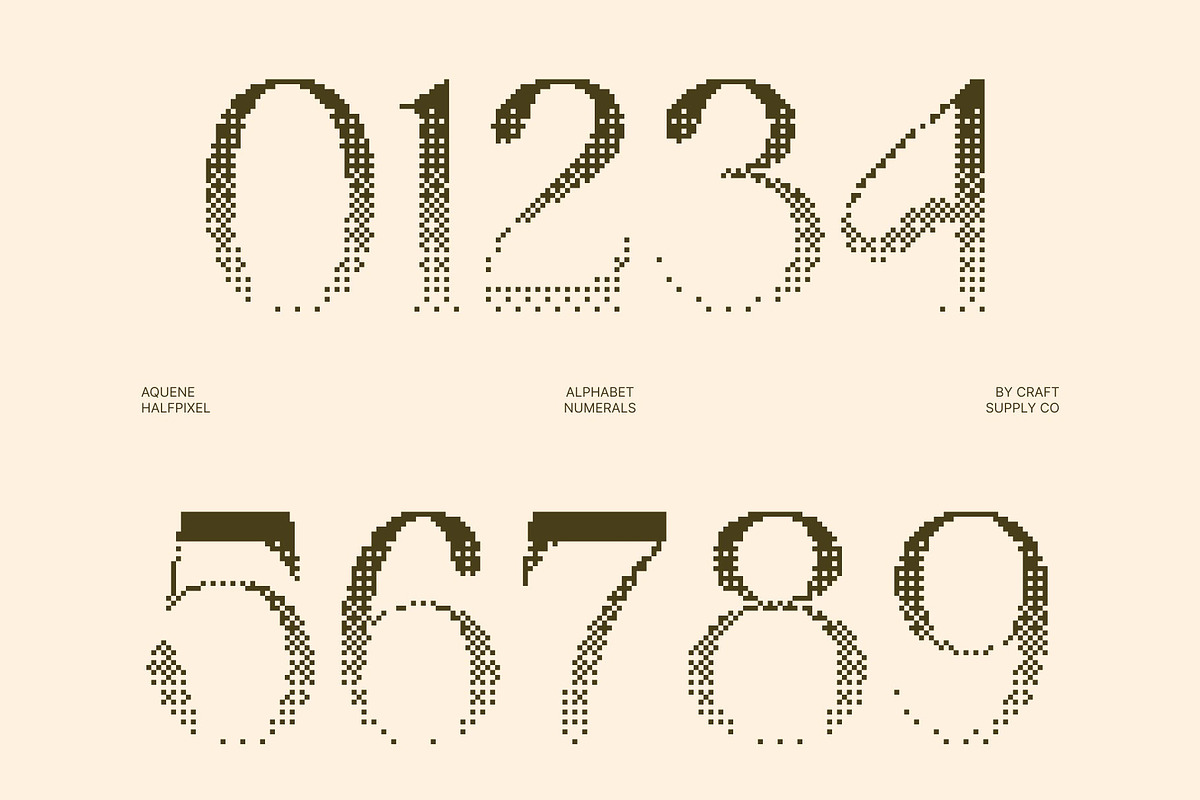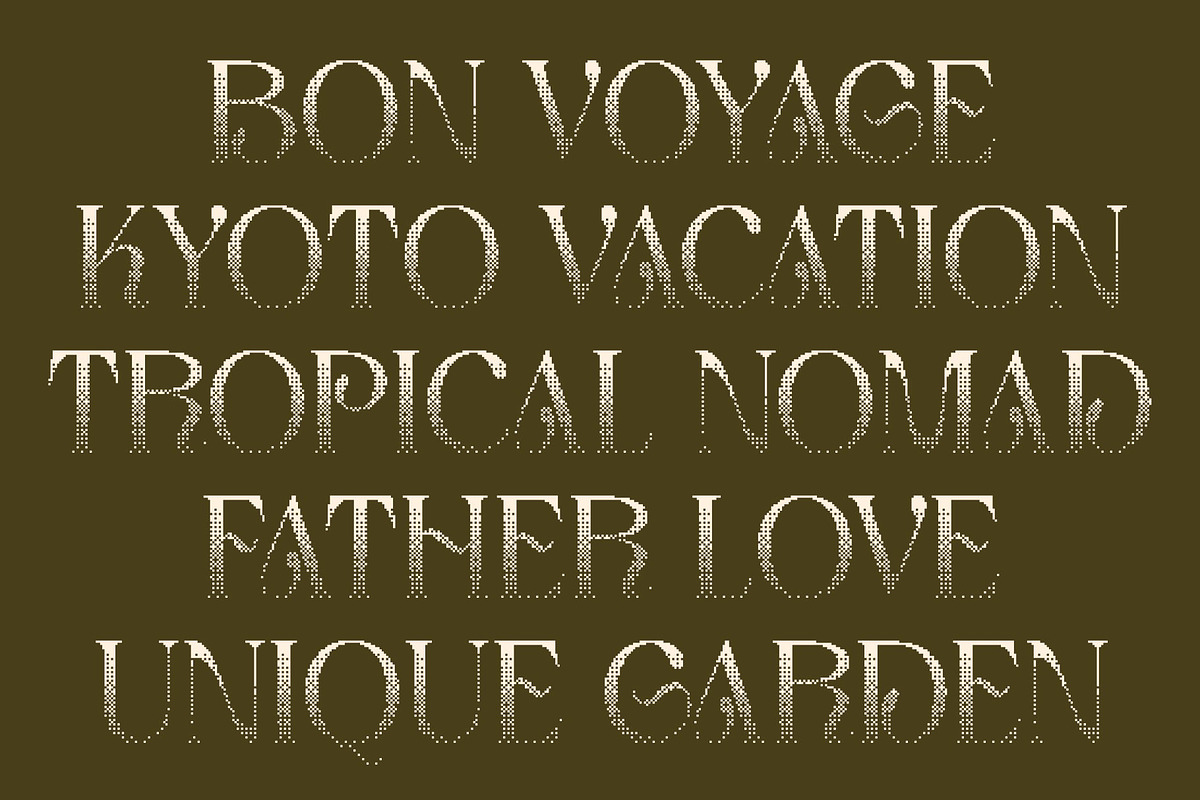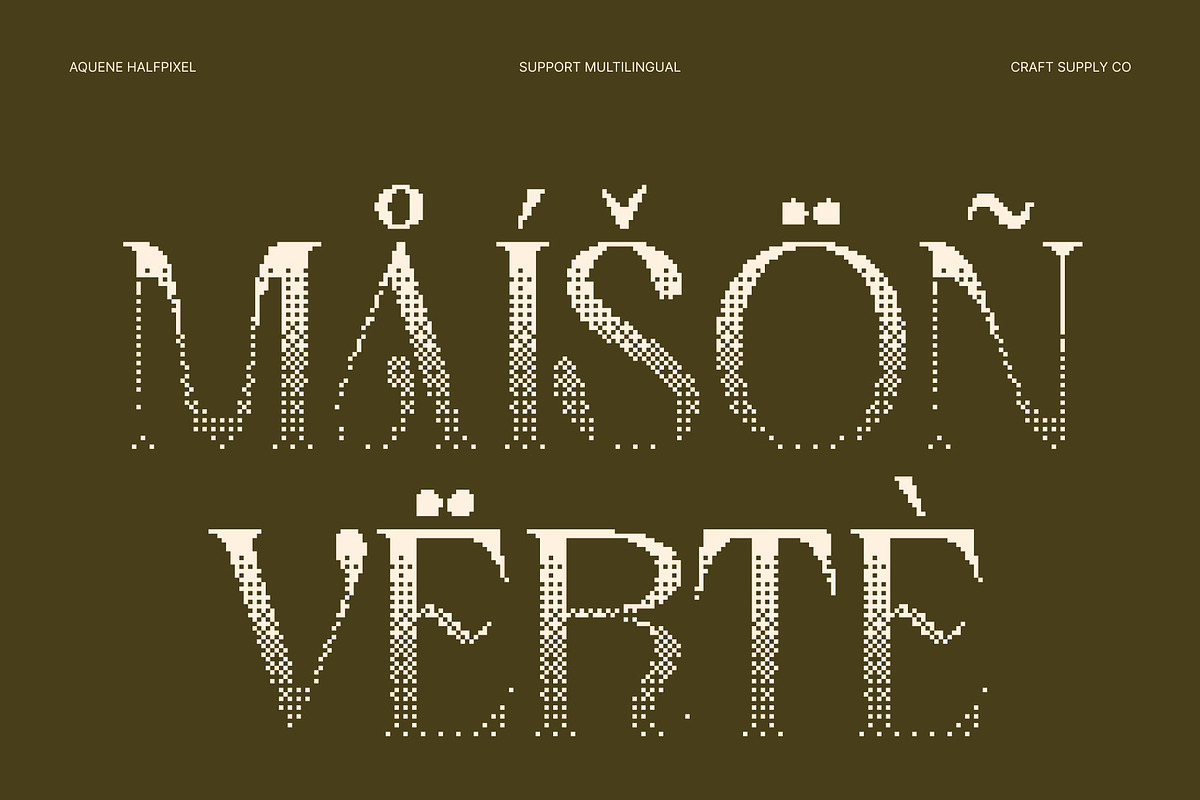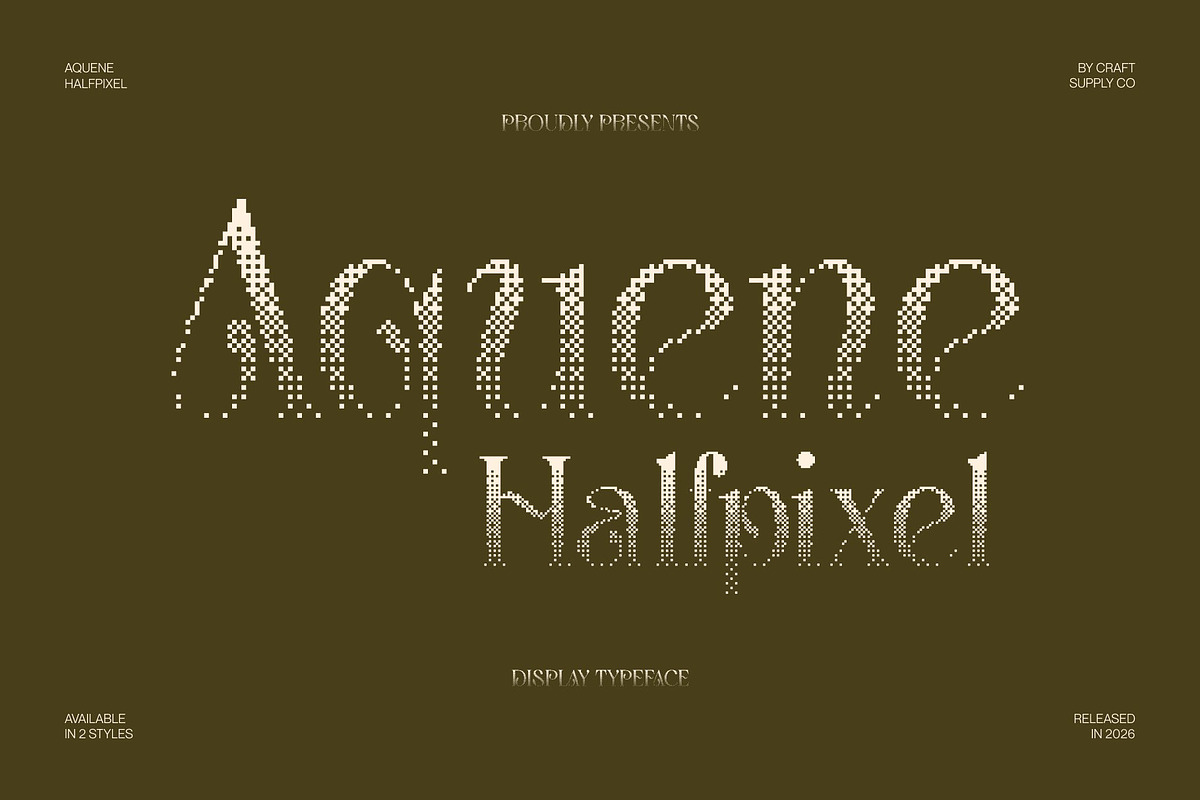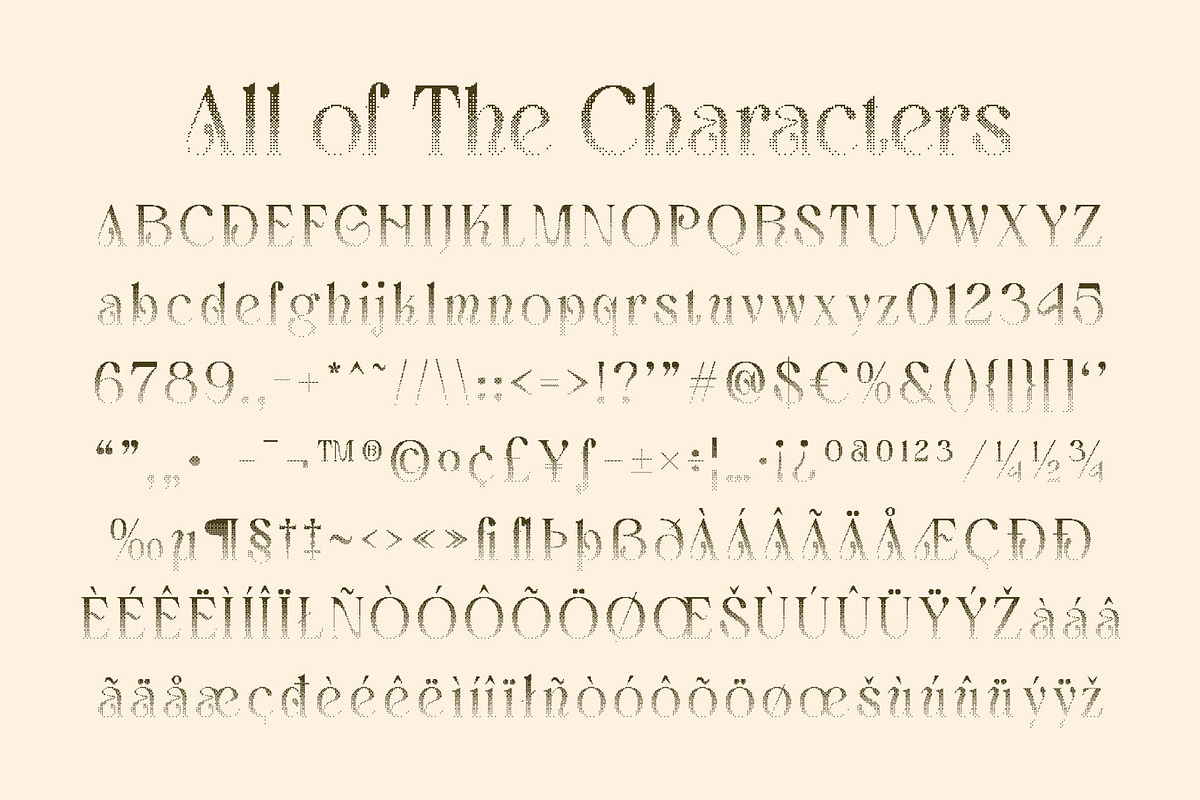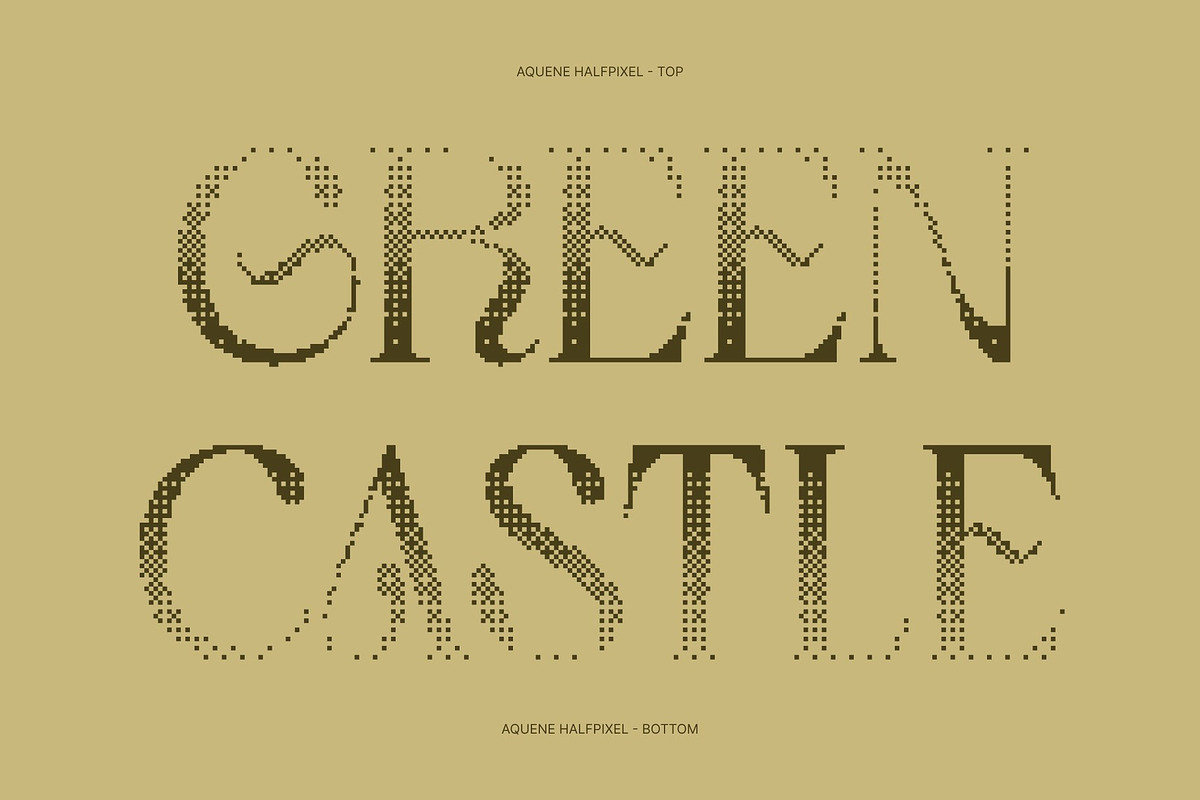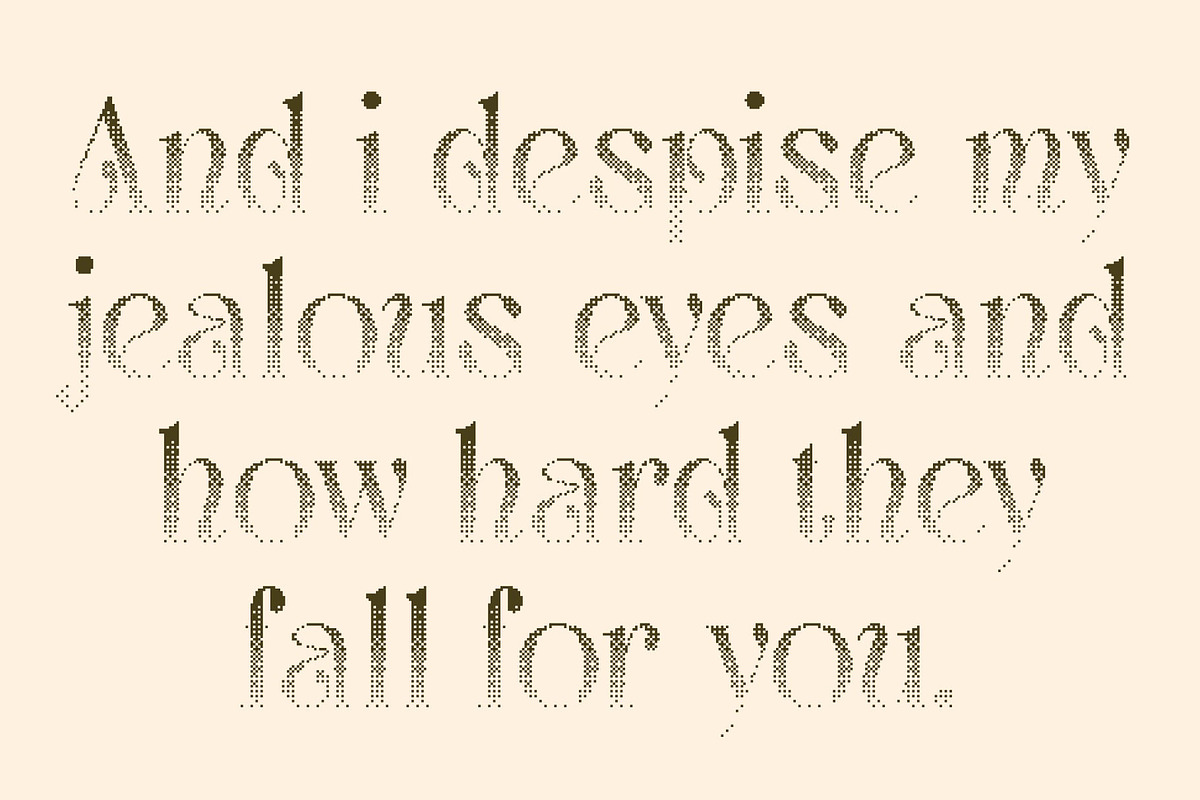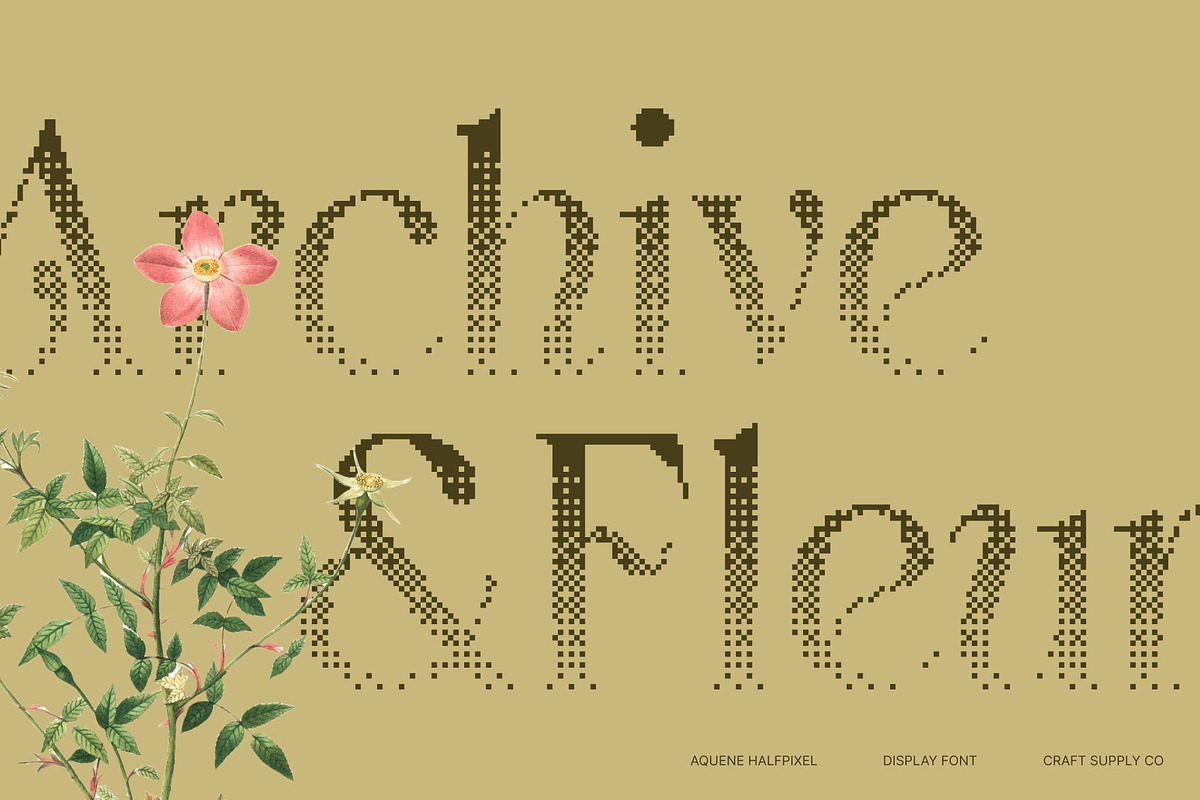
Aquene Halfpixel
Aquene Halfpixel – Display Serif Font
Graceful Flow for Captivating Headlines This is a striking display serif designed to create elegant and memorable typography. Its refined curves and graceful letterforms bring a sense of sophistication, making it perfect for eye-catching headlines, titles, and statement text.
Bold Presence with Versatile Application From posters and banners to logos, website headers, and social media graphics, this font adapts beautifully across a wide range of design needs. Its expressive character ensures your message stands out while maintaining a polished and professional look.
Halfpixel Finish for Smooth Digital Clarity Enhanced with a halfpixel texture, the font features subtly softened edges that create a smoother appearance than traditional pixel styles. This gentle anti-aliasing effect adds a retro-digital nuance while improving clarity across both screen and print.
Readable at Any Size This font balances decorative elegance with excellent legibility. Whether used in large display settings or smaller text elements, its carefully crafted forms remain clear, stylish, and easy to read.
Aquene Halfpixel Top
Aquene Halfpixel Bottom